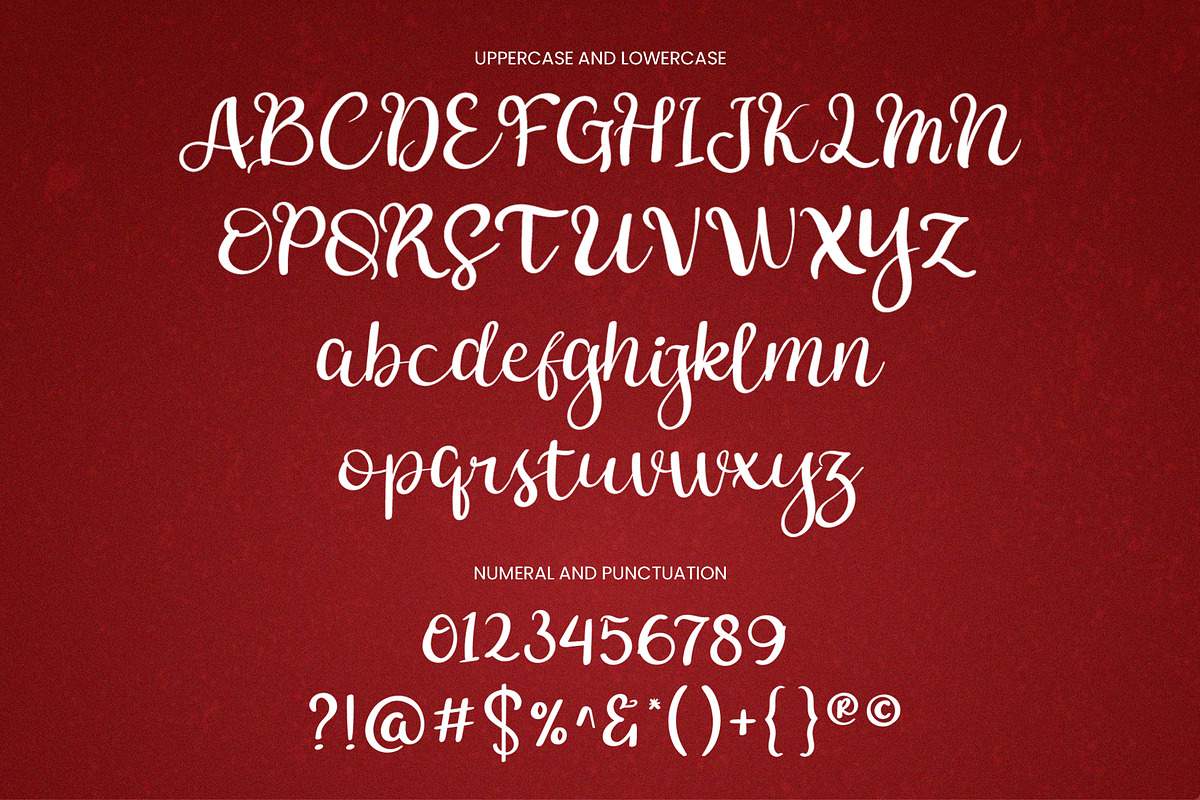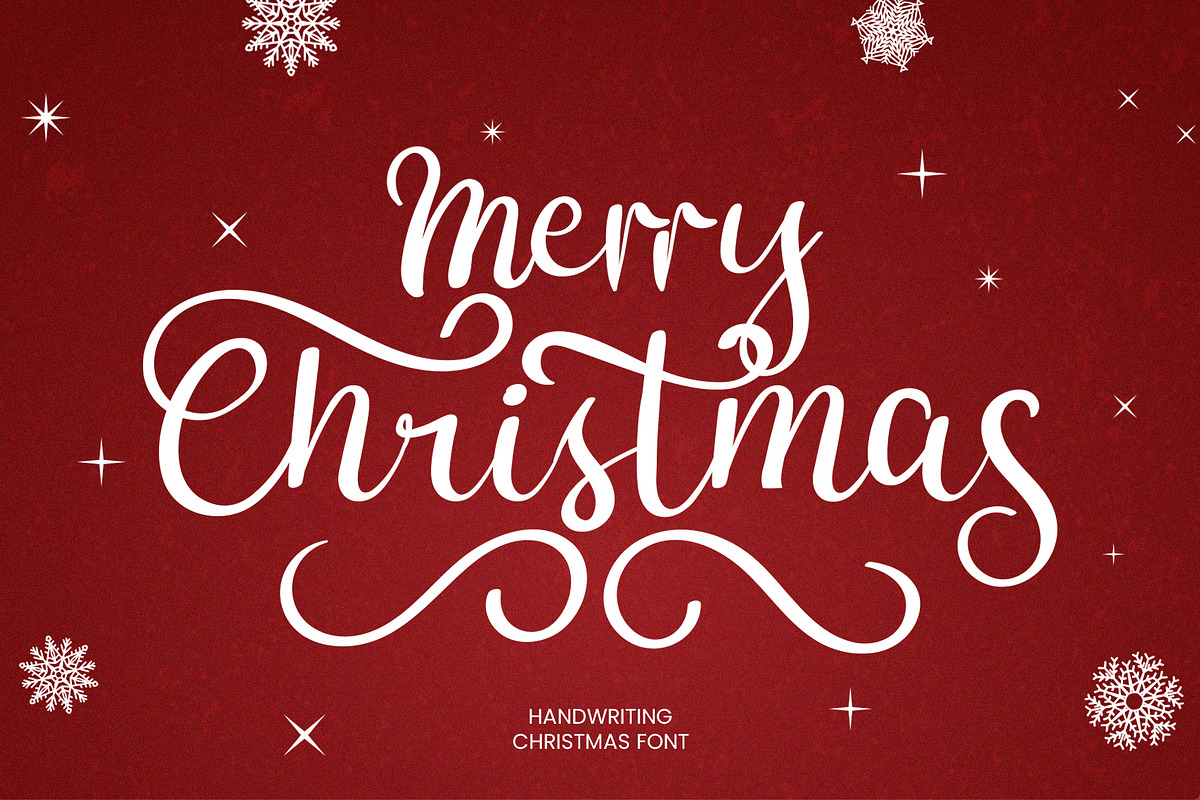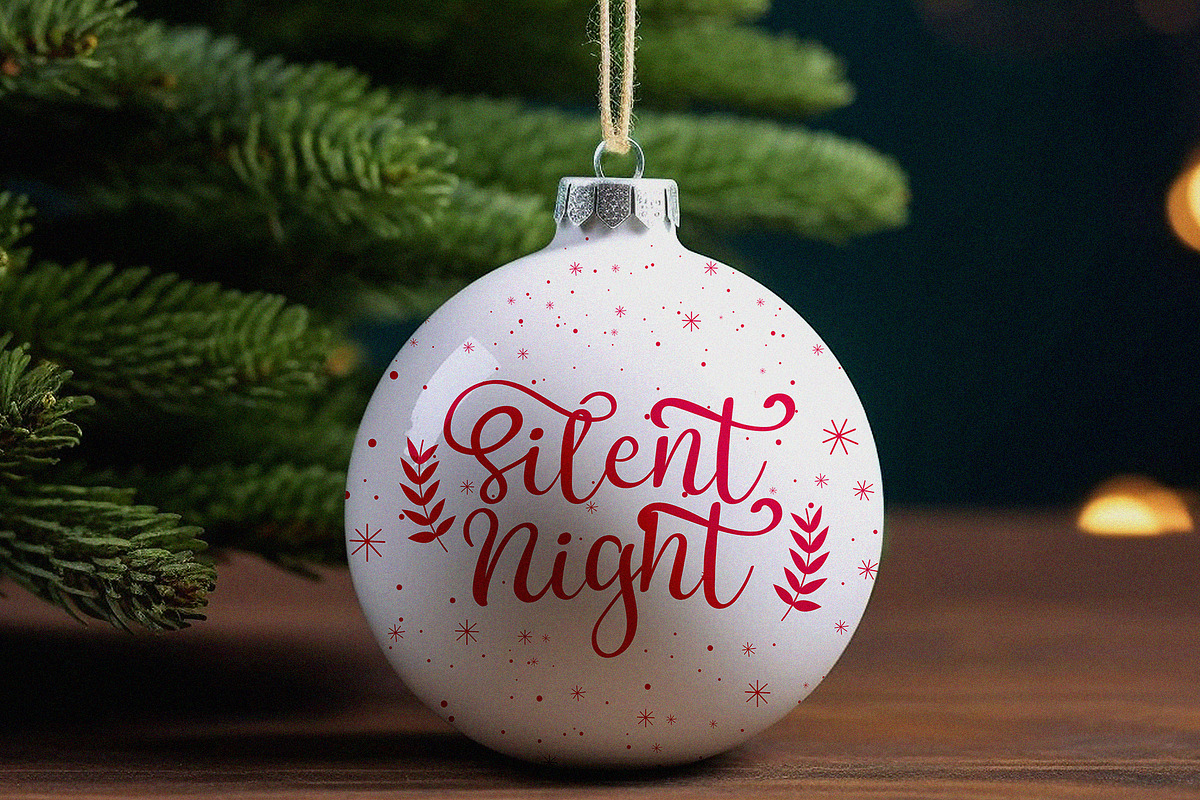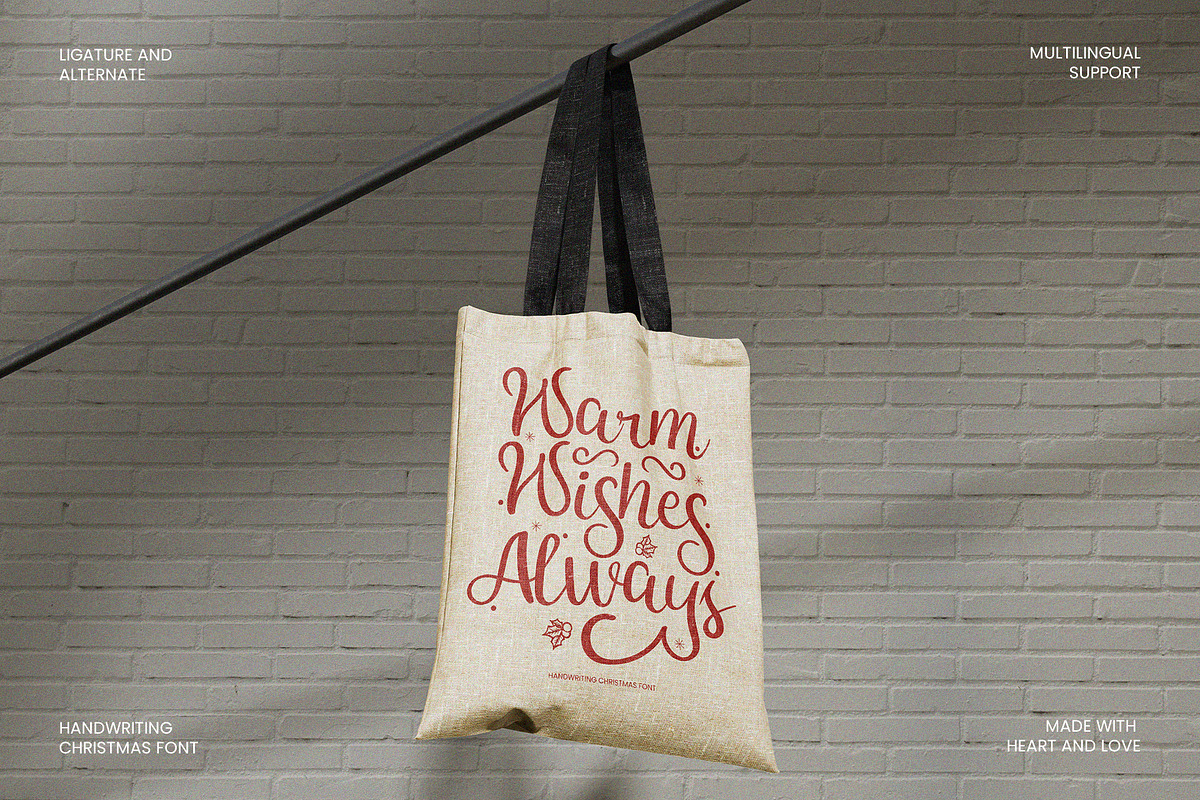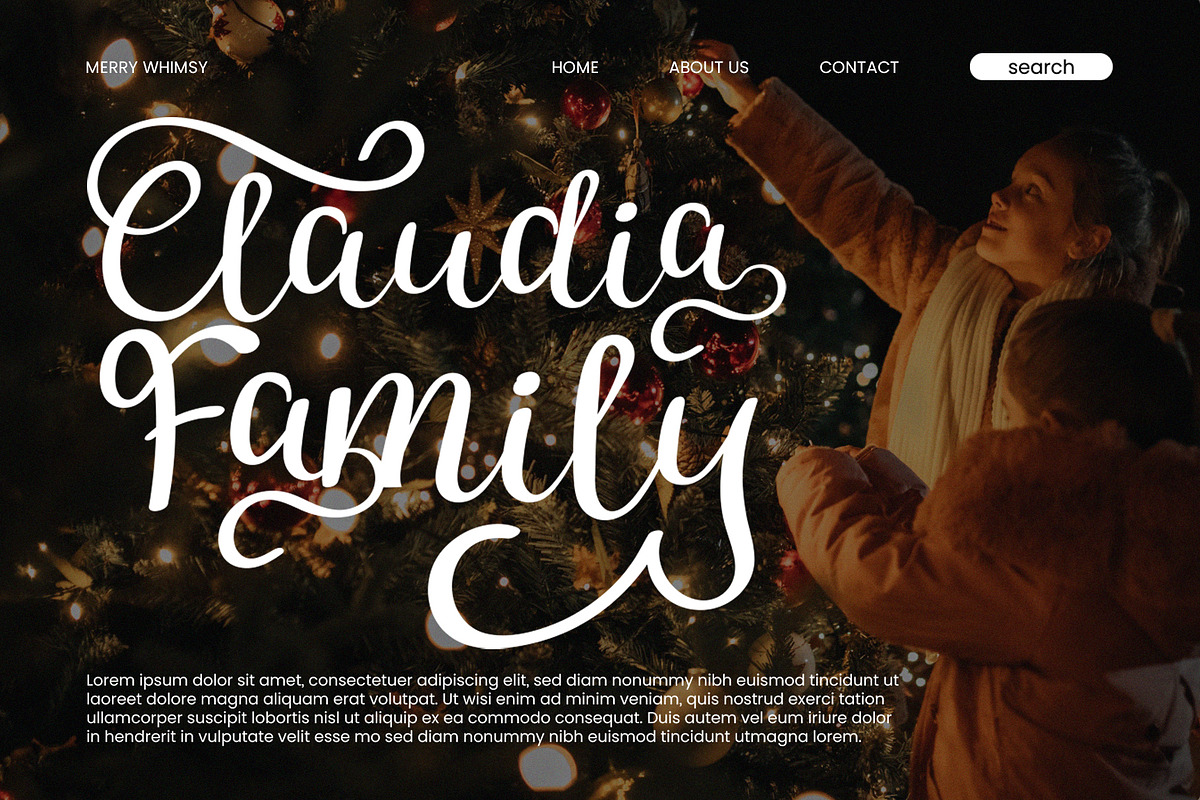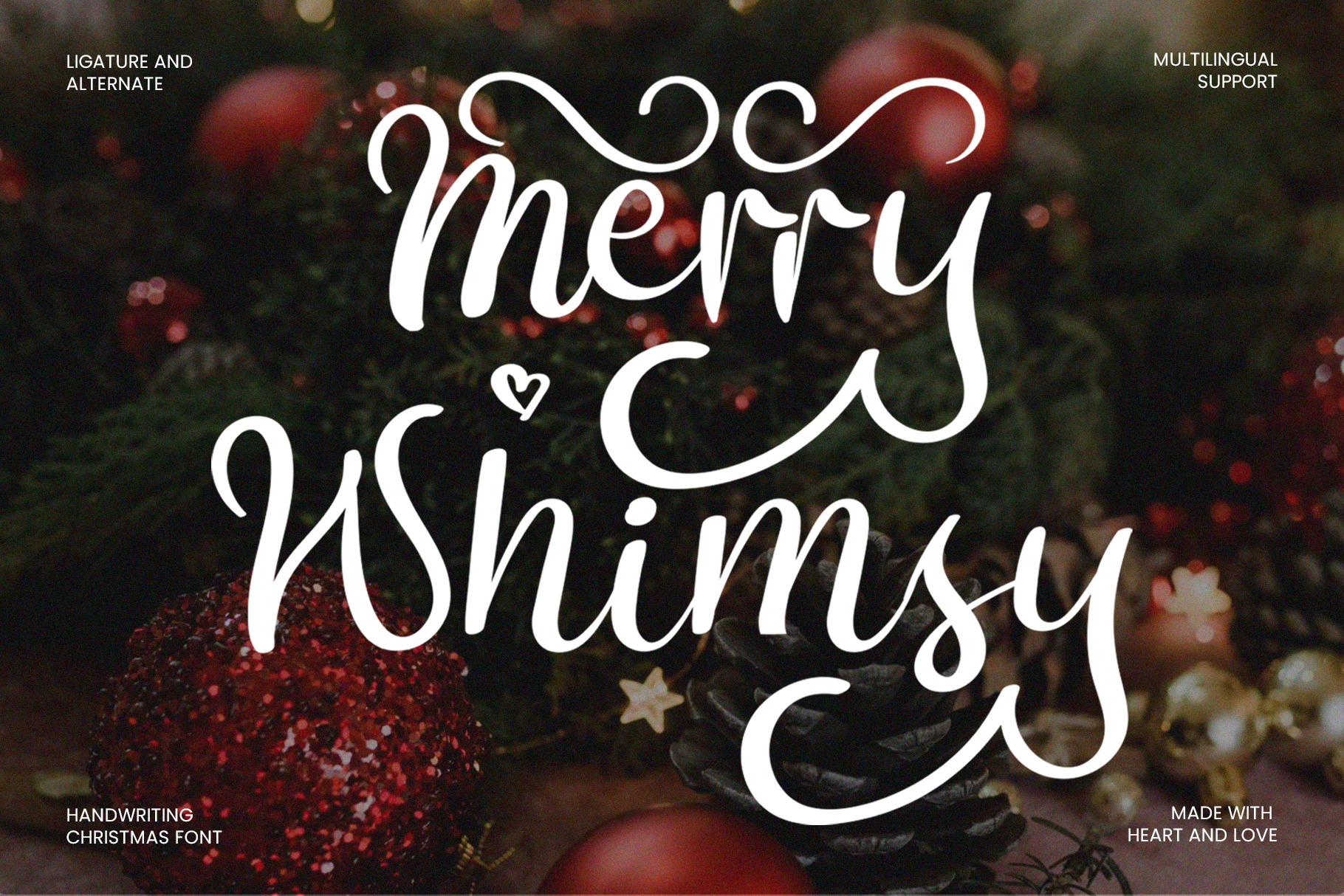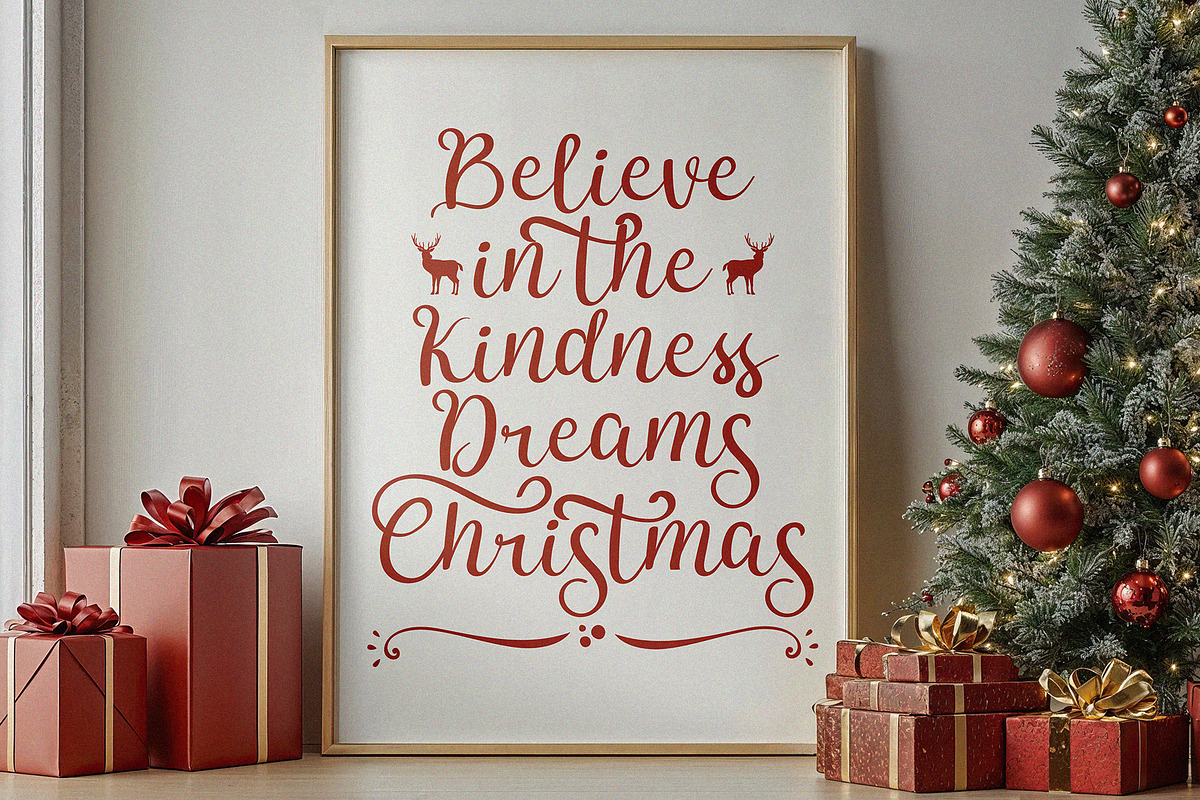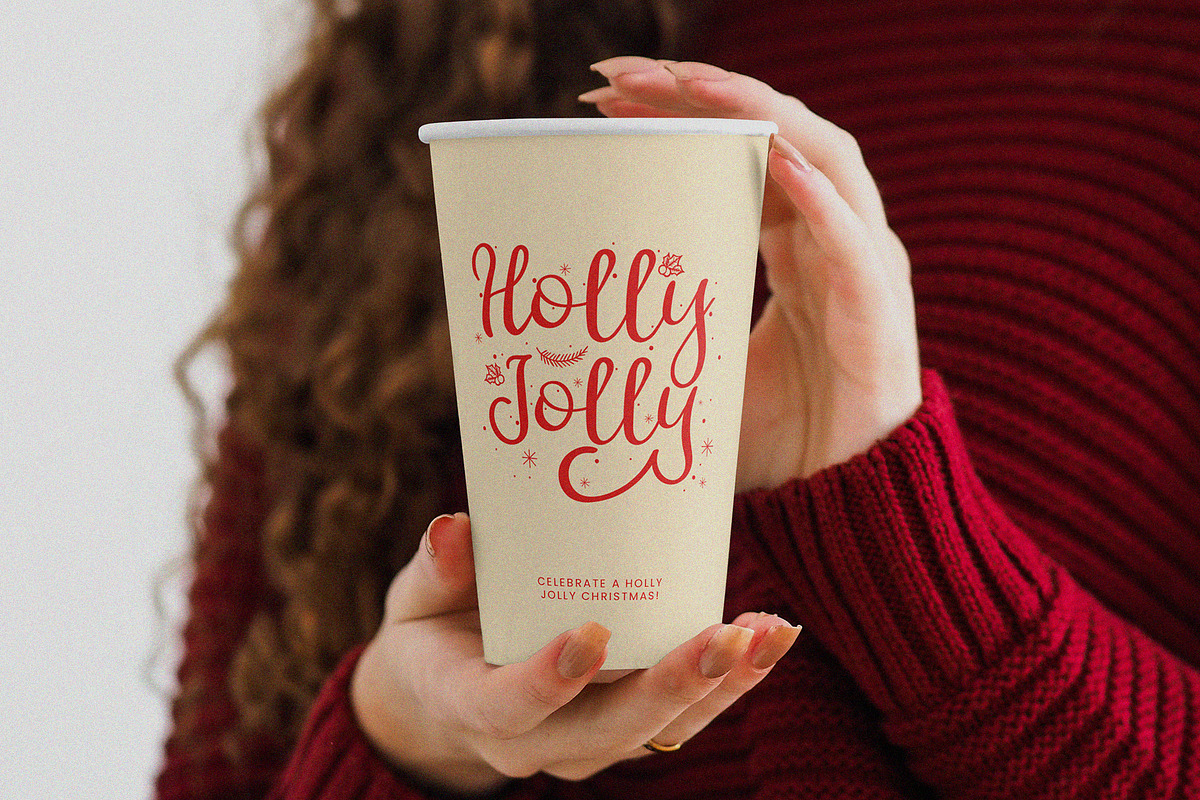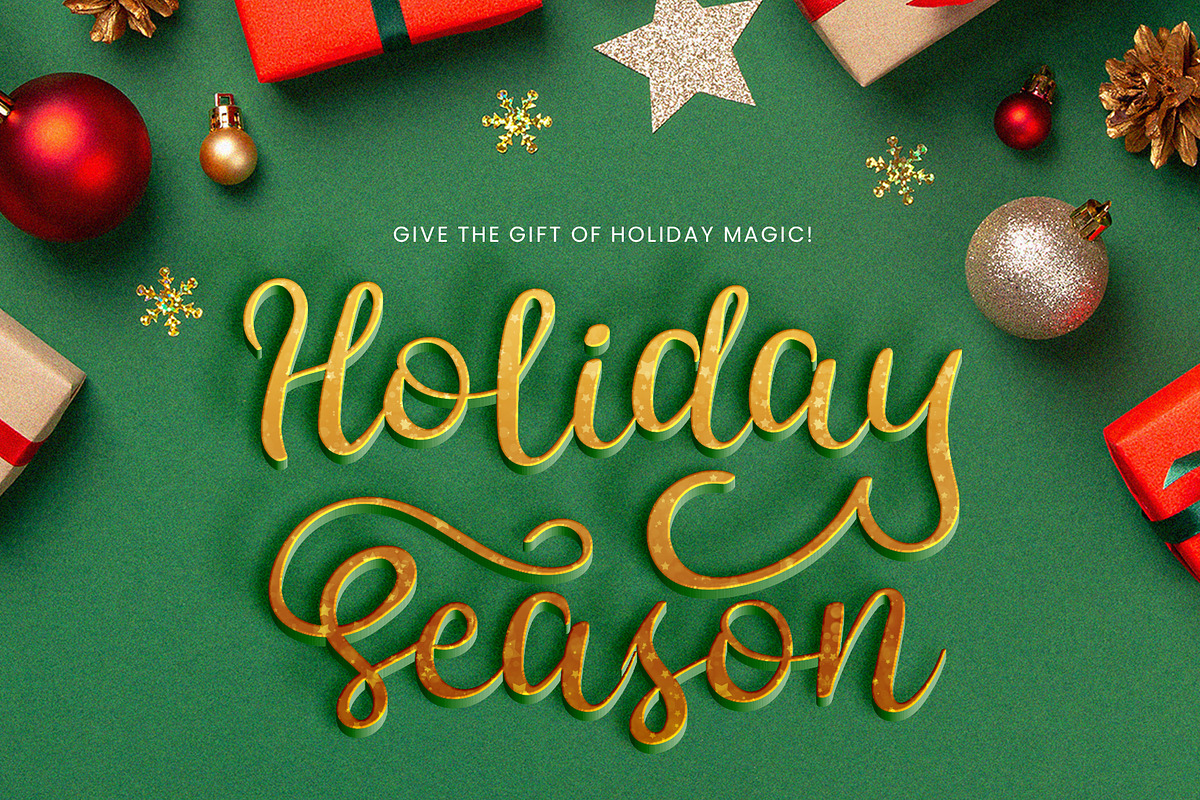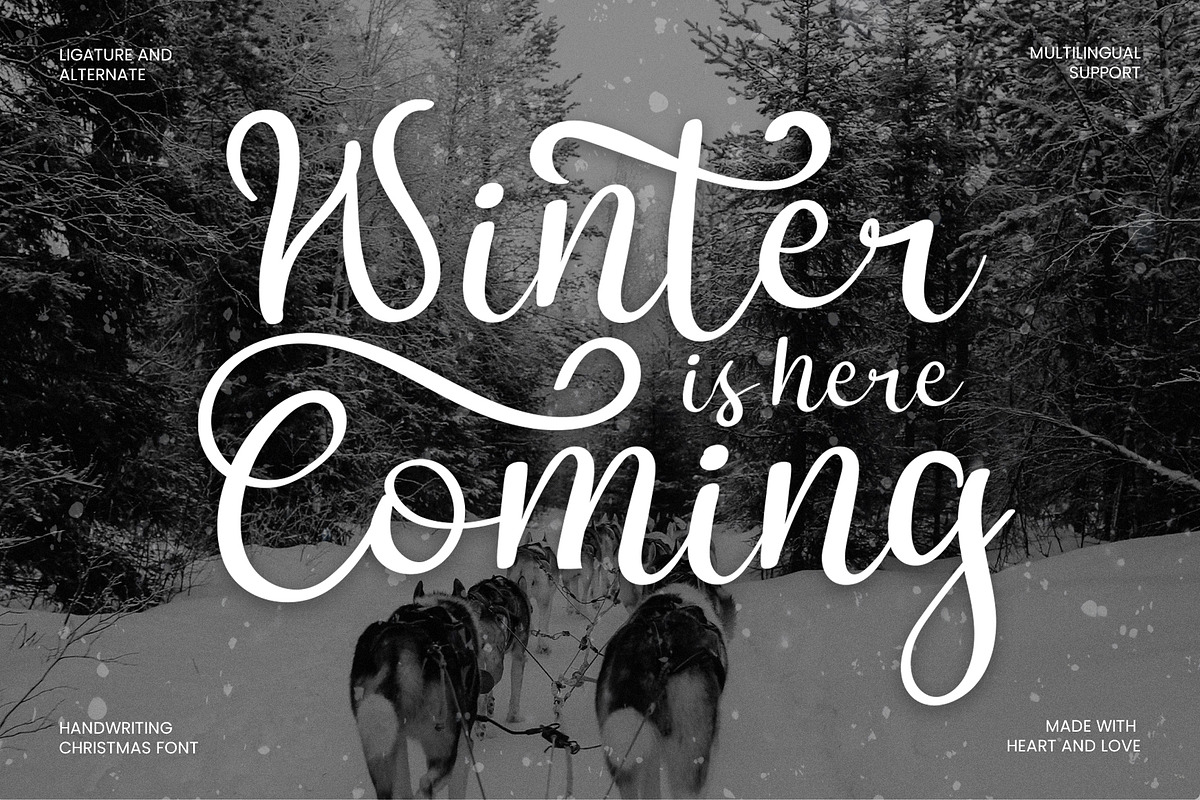
Merry Whimsy - Handwriting Font
Festive handwritten Christmas font with a cozy, personal touch—ideal for holiday cards, invitations, crafts, and seasonal branding.
- Uppercase & Lowercase Characters: Fully designed for a complete typographic experience
- Numerals & Punctuation: All the numbers and punctuation marks you need for any design task
- Multilingual Support: Includes characters for multiple languages, ensuring global usability
- High-Quality Design: Each font is crafted with attention to detail, ensuring a polished and professional look